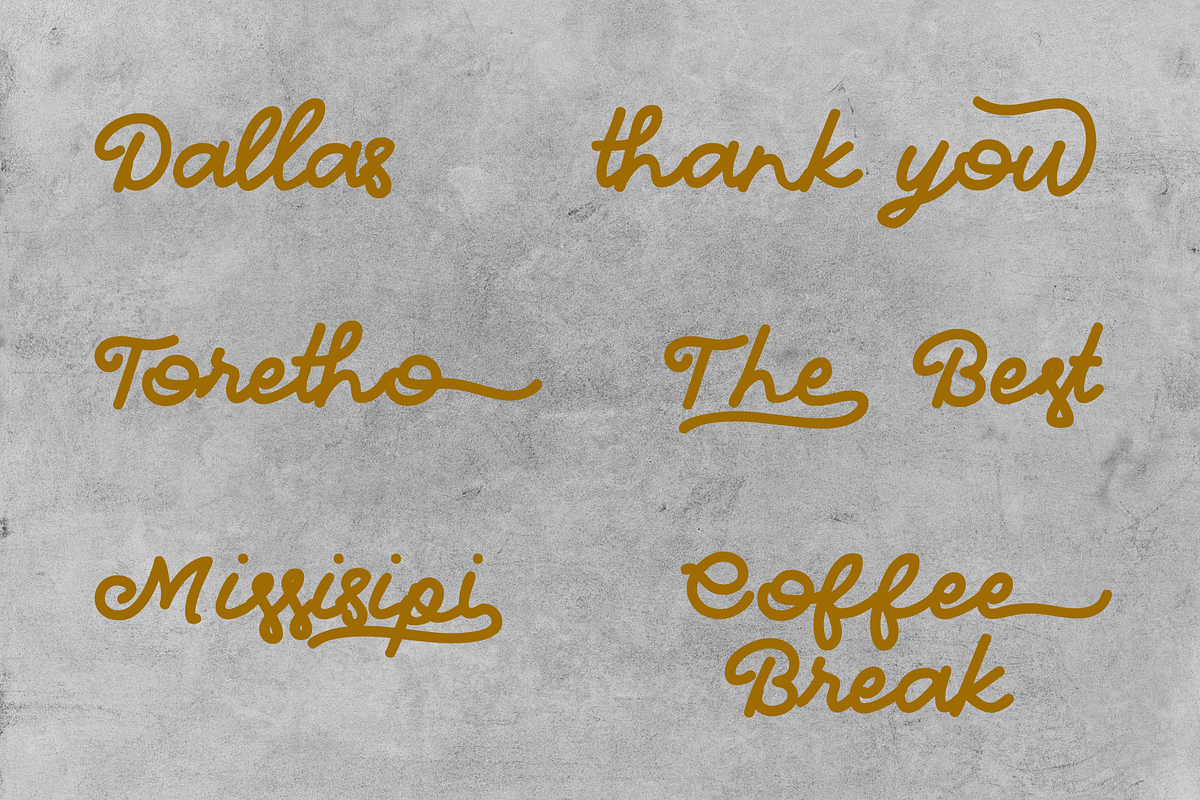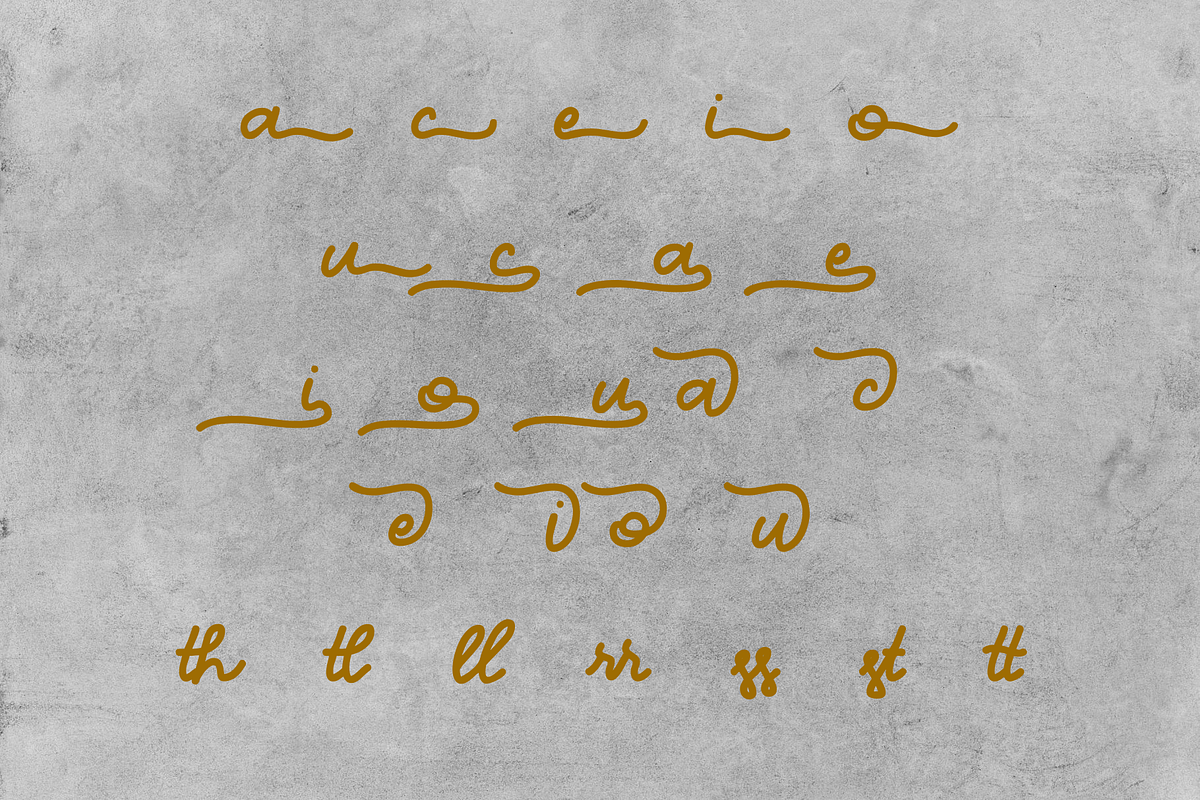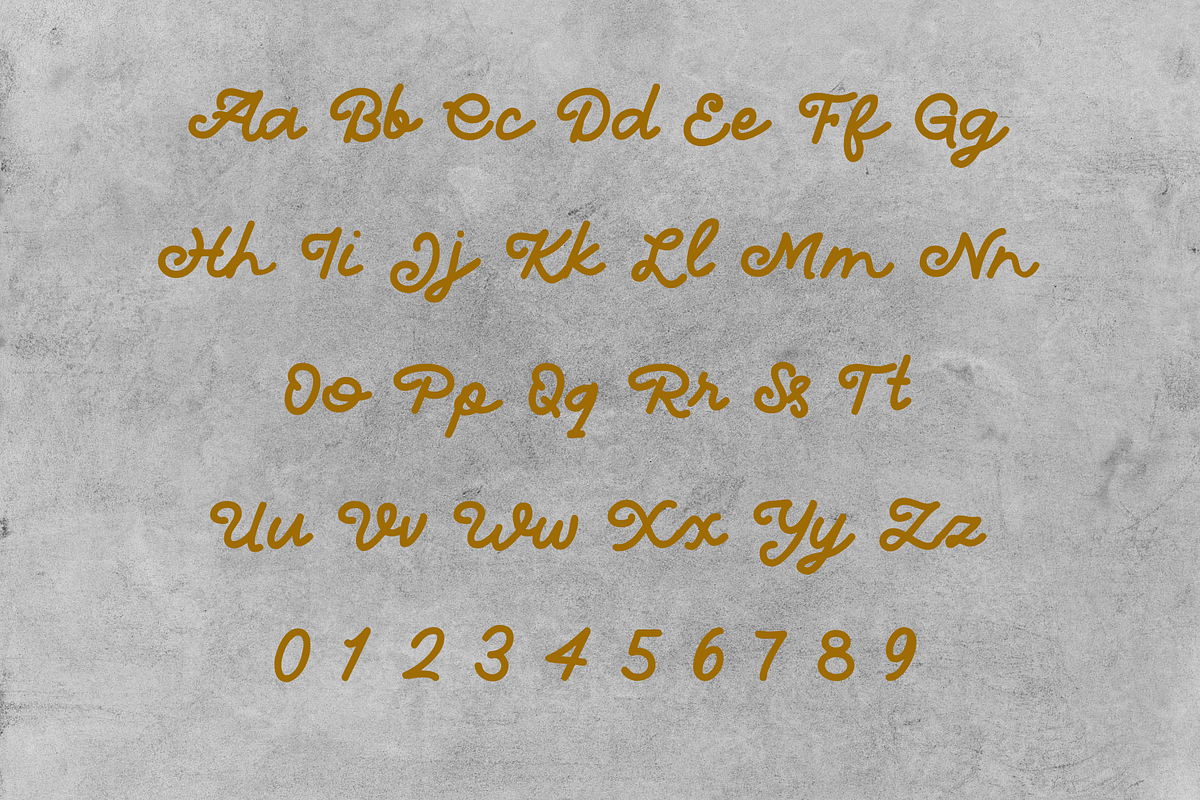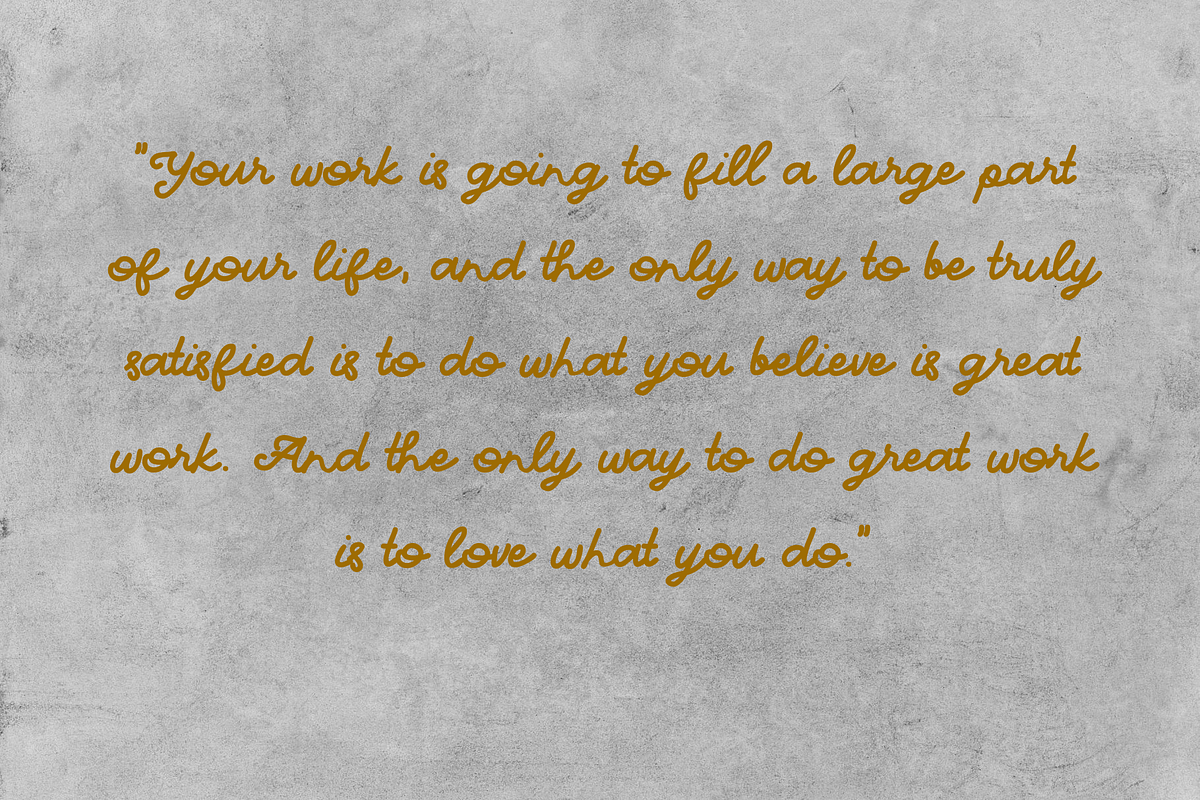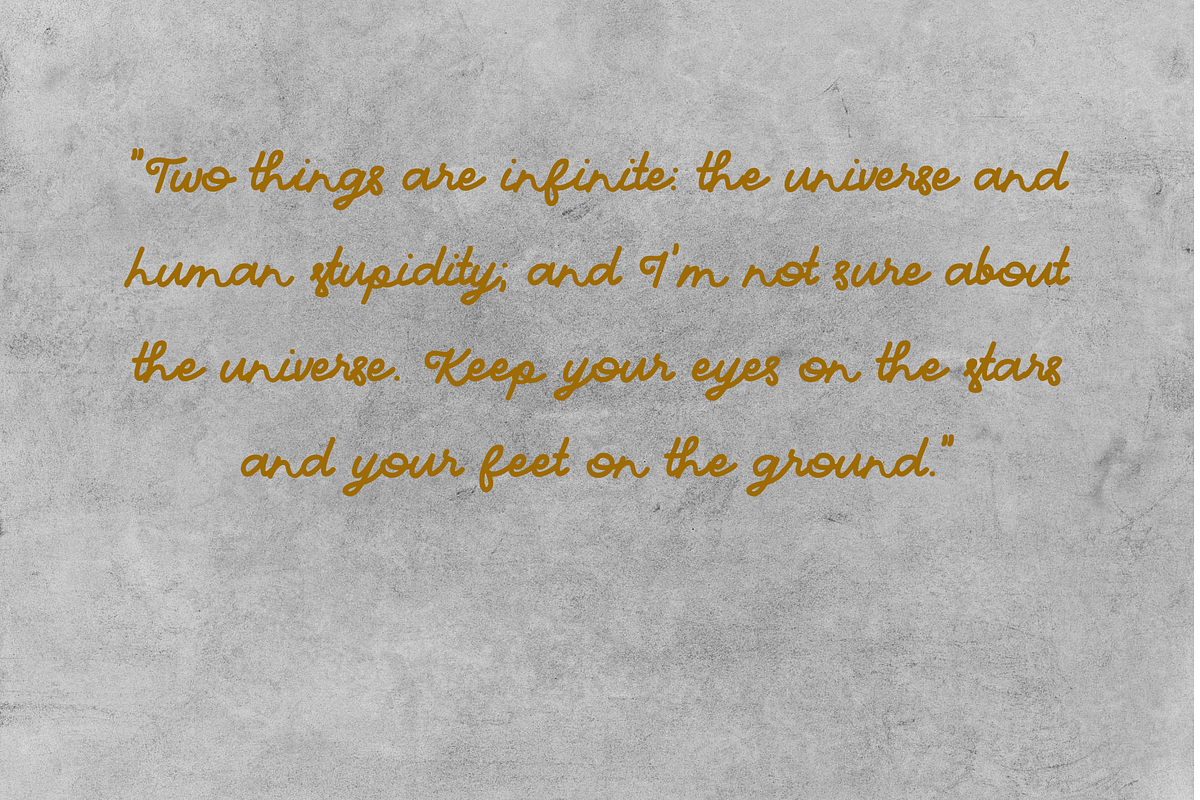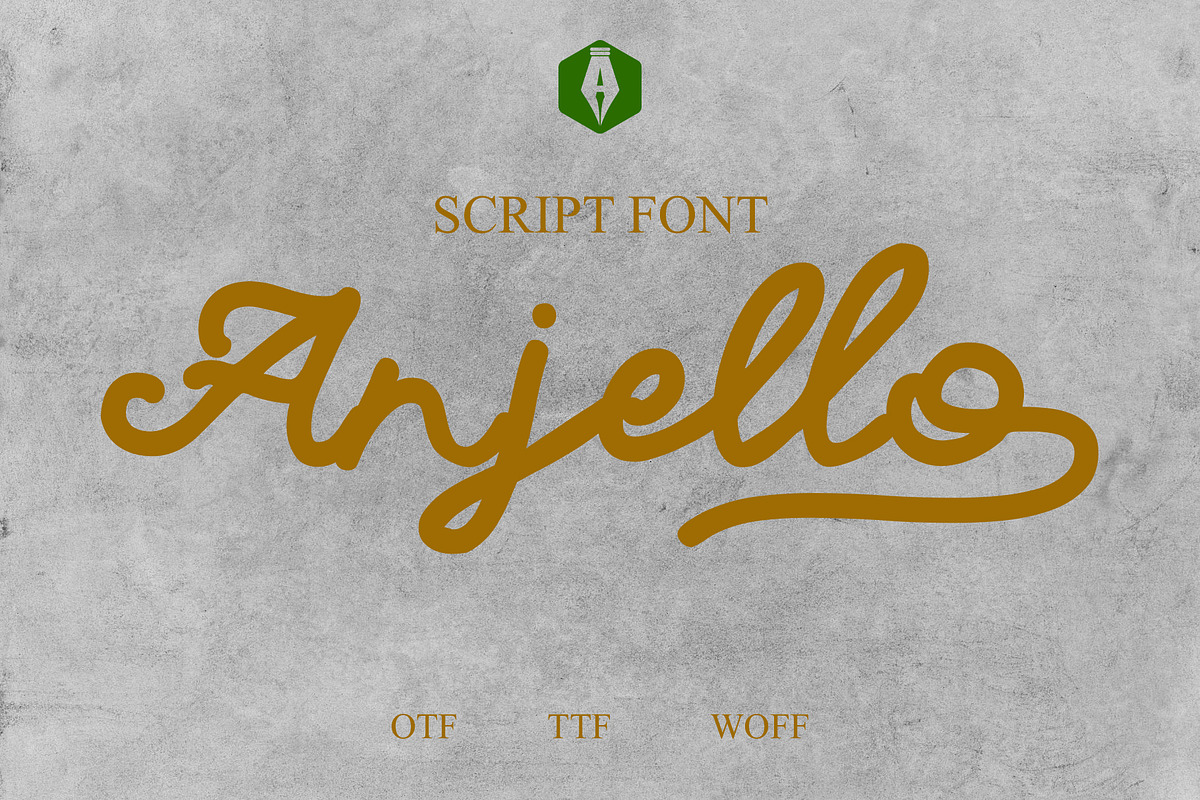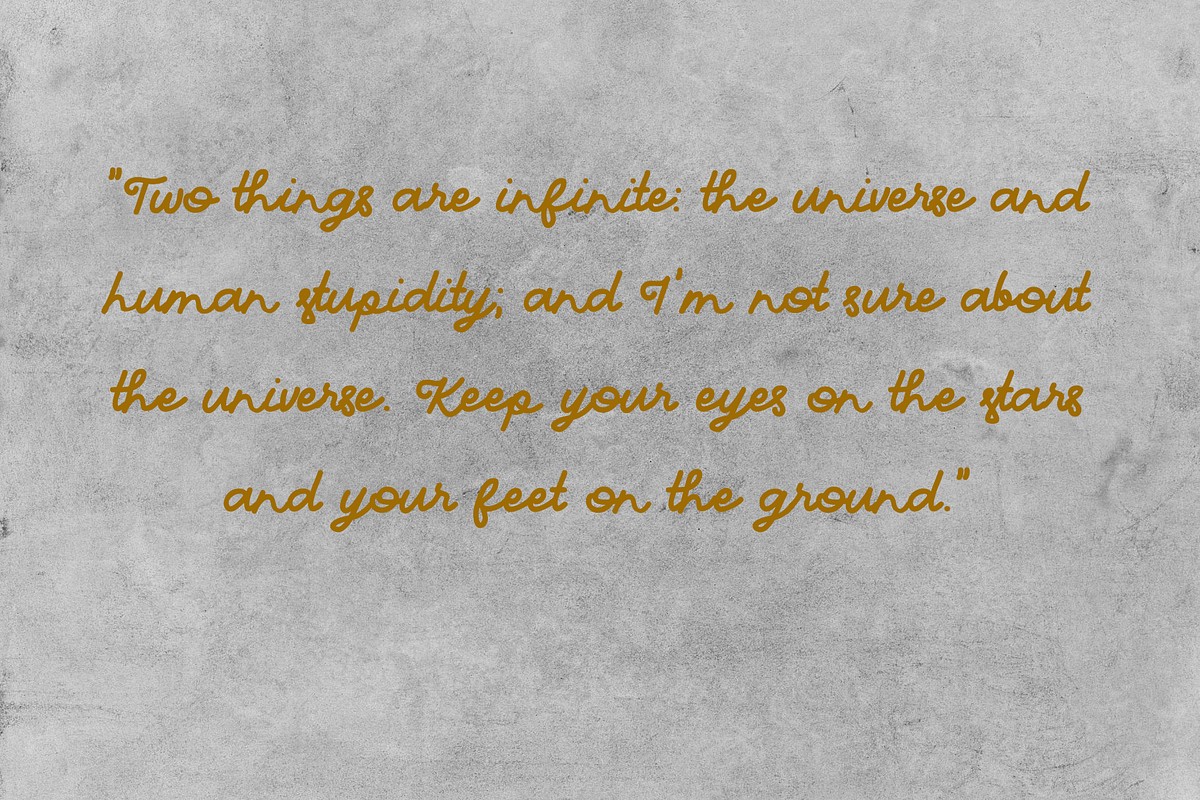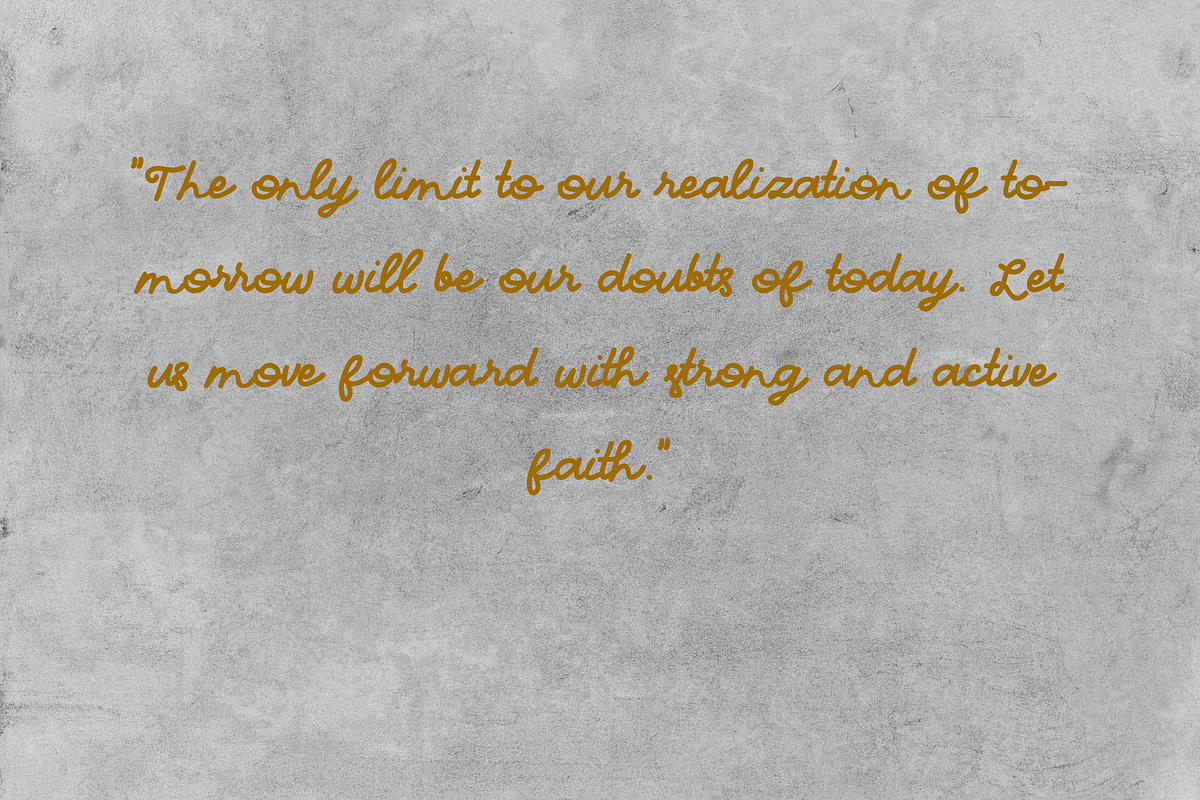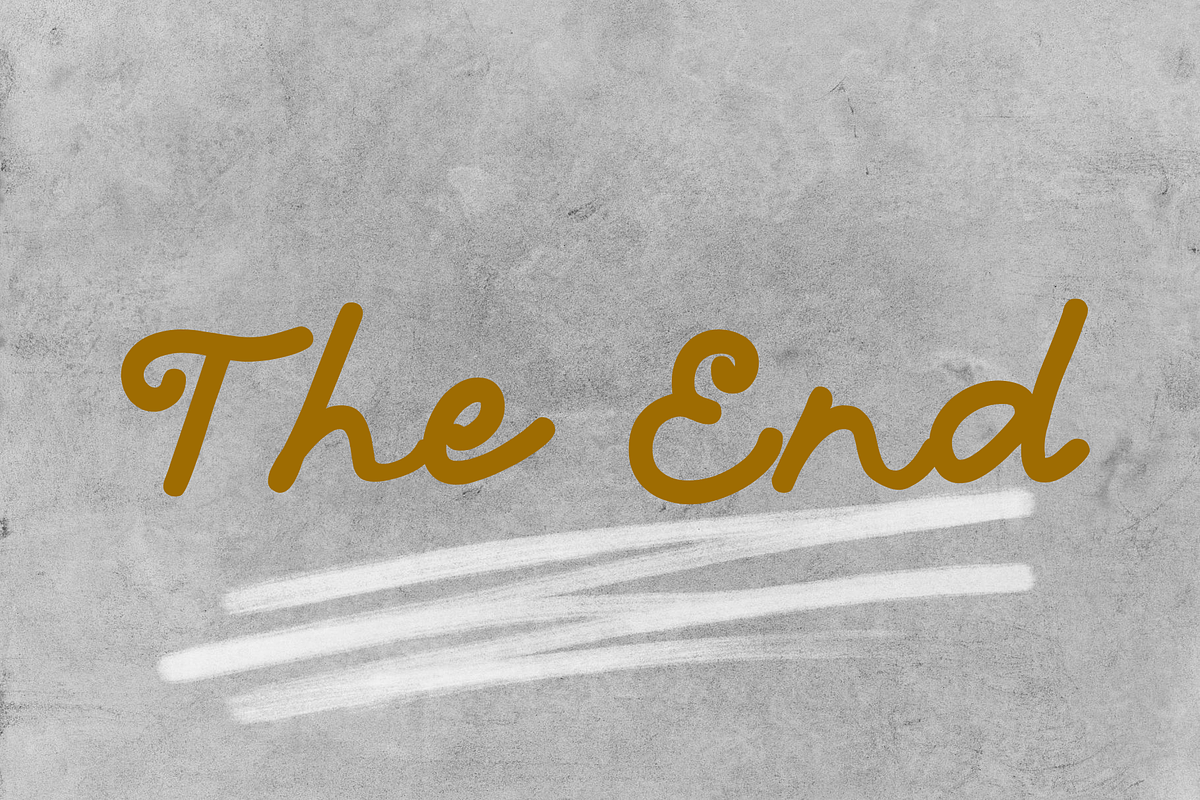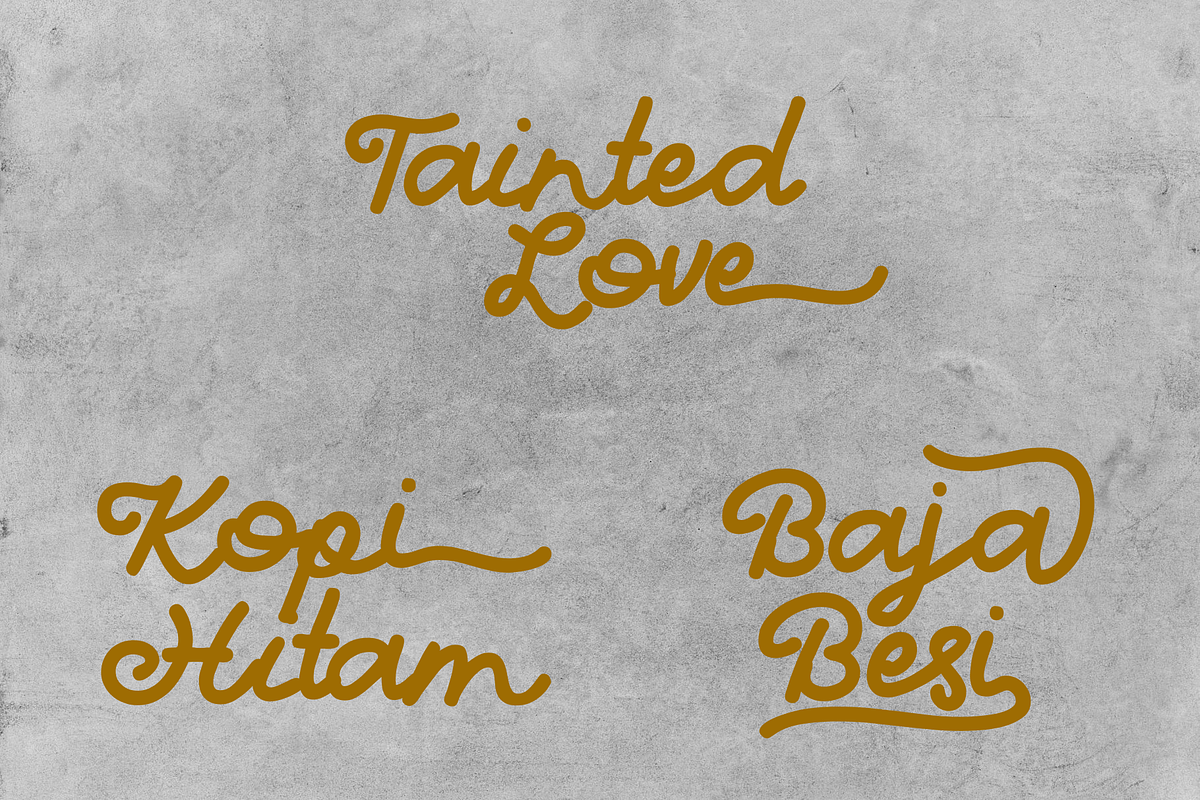
Anjello Monoline Comic Script
Anjello Monoline Comic Script introduces readers to a captivating world where whimsy and wonder collide in a seamless dance of storytelling and artistry. This unique comic script, penned in a monoline style, brings forth a visually stunning and cohesive narrative that unfolds with each stroke of the pen. The characters come to life in a distinct, fluid fashion, their expressions and movements captured with a sense of grace that adds depth to their personalities. The monoline technique, with its consistent line weight, not only serves as an aesthetic choice but also plays a crucial role in maintaining a harmonious visual rhythm throughout the comic.
In this enchanting universe crafted by Anjello, the storyline takes unexpected twists and turns, seamlessly blending humor, drama, and moments of heartfelt emotion. The monoline script's simplicity enhances the clarity of the narrative, allowing readers to easily follow the characters' adventures while immersing themselves in the rich tapestry of the comic's world. The monoline style's clean and elegant strokes create a timeless quality, inviting readers to revisit the story repeatedly and discover new details with each reading.
Anjello Monoline Comic Script is not just a visual feast but also a testament to the power of storytelling through simplicity. The deliberate choice of a monoline style demonstrates a commitment to artistic discipline while inviting readers to explore the magic that unfolds within the pages. With its distinctive charm and thoughtful execution, Anjello Monoline Comic Script promises to captivate audiences of all ages and leave a lasting impression in the realm of comic artistry.